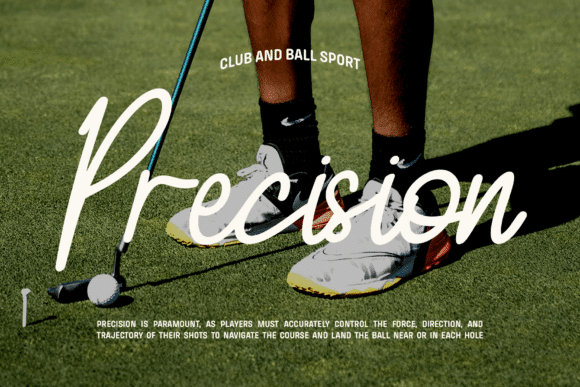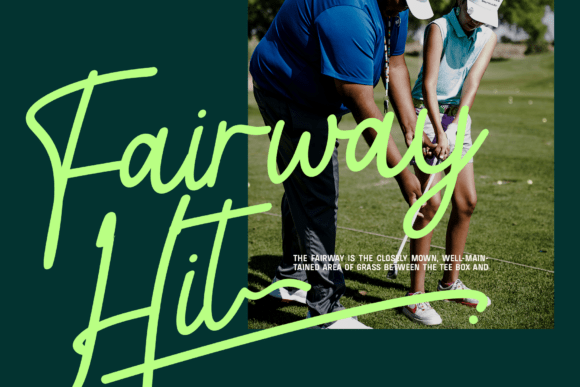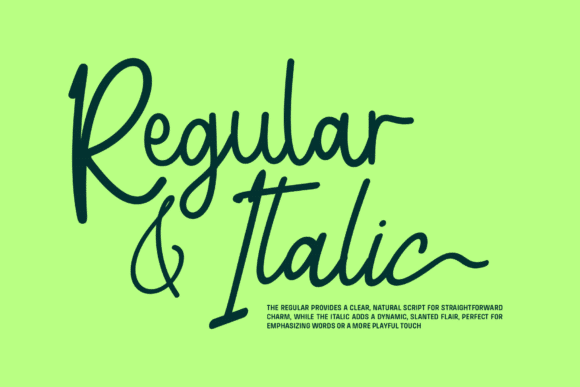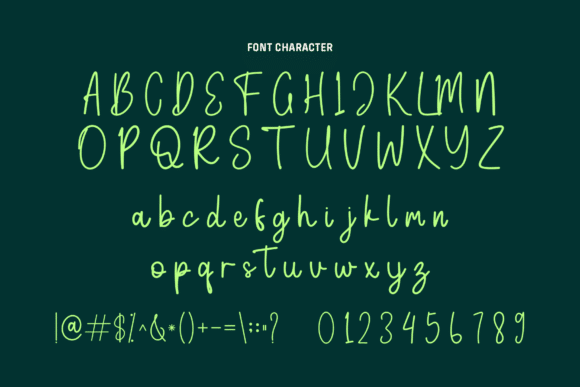
Rishira Notes Regular Font Font
Rishira Notes is a charming handwritten script typeface that radiates warmth and personality. Designed to feel authentically written by hand, it adds a heartfelt, human touch to any visual project. Its smooth strokes and natural letterforms create an inviting, approachable vibe—perfect for invitations, greeting cards, personal branding, social media graphics, inspirational quotes, or journal-style layouts. With 26 alternate characters, Rishira Notes offers playful versatility, letting each composition feel fresh, expressive, and uniquely yours. With PUA encoding included, all special characters and decorative elements are easily accessible without additional software.